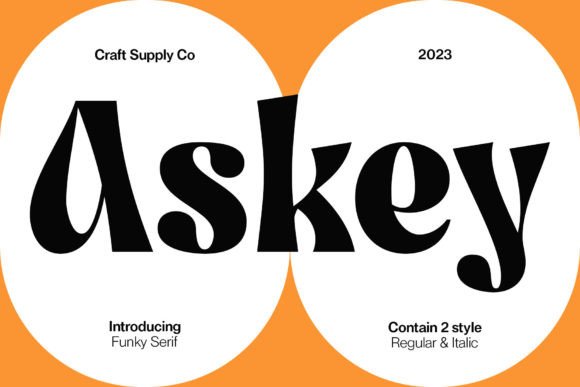
Step into the captivating world of Askey, where typography transforms into an artistic dance of creativity and self-expression. This exuberant serif font ignites a spark of individuality, daring to break boundaries and embrace the unconventional. Askey is not merely a font; it's a gateway to express your ideas with remarkable flair.
Crafted with the spirit of funk as its muse, Askey bursts onto the scene with a visual symphony of unique serifs, each stroke a testament to the designer's artistic vision. Whether you're a designer seeking a distinctive voice for your creations or an individual yearning to add a touch of quirkiness to your projects, Askey is your artistic muse.
Imagine your designs adorned with Askey's captivating presence. Its bold and expressive characters bring life to posters, album covers, and any creative endeavor demanding an audacious flair. Askey is not just a font; it's a statement piece, a defiant declaration of your unique style.
With Askey at your fingertips, you're not just designing; you're creating a visual masterpiece. This font is a canvas for your imagination, a tool that empowers you to express your innermost thoughts and emotions with a visual language that speaks volumes. Askey is your creative ally, guiding you towards designs that resonate with your audience.
So, embrace the funk, defy convention, and let Askey guide you on a typographic adventure. Download this exceptional font today and unlock the gateway to a world where creativity knows no bounds. Askey is more than a font; it's an experience, a celebration of individuality, and an artistic journey that awaits your exploration. Unleash your creativity and let Askey lead the way!